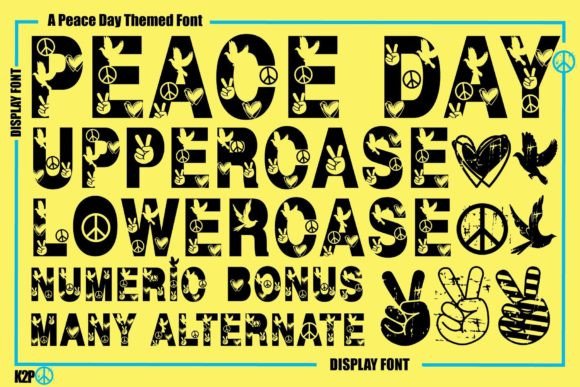
Introducing Peace Day Font, a decorative masterpiece that adds a touch of warmth and character to your designs. Its thick-lettered appeal and authentic look bring a personal and realistic feel to any project.
With Peace Day Font, your quotes and teaching materials will come alive. Its unique style captivates readers, drawing them into the heart of your message. Whether designing posters, cards, or social media graphics, Peace Day Font is guaranteed to make a lasting impression.
As an artist, you know the importance of evoking emotion through your work. Peace Day Font is your secret weapon to stir hearts and inspire minds. Its bold presence commands attention, while its delicate charm whispers of heartfelt sentiments.
This versatile font seamlessly adapts to your creative vision. Its PUA encoding grants you effortless access to all glyphs and swashes, empowering you to unleash your imagination without limits.